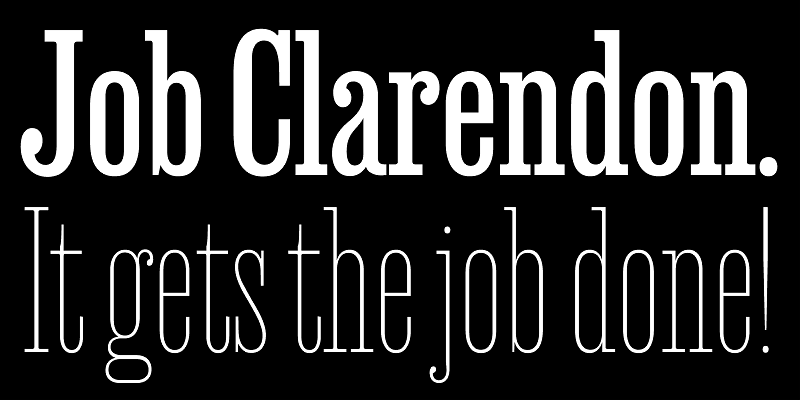
Job Clarendon Font Free Download is a classic slab-serif typeface that combines strong, bold features with a touch of vintage sophistication. With its distinctive serifs and heavy weight, this font is perfect for creating impactful headlines, logos, posters, and branding that demand attention while maintaining a refined, traditional feel.
Job Clarendon Font Free Download has a timeless design, making it ideal for both modern and retro-style projects. Its sturdy structure makes it highly legible, even in smaller sizes, and its bold character set ensures it stands out on everything from print materials to digital interfaces.
Whether you're working on an editorial design, a boutique brand identity, or any other creative project, Job Clarendon delivers both strength and elegance to your typography.